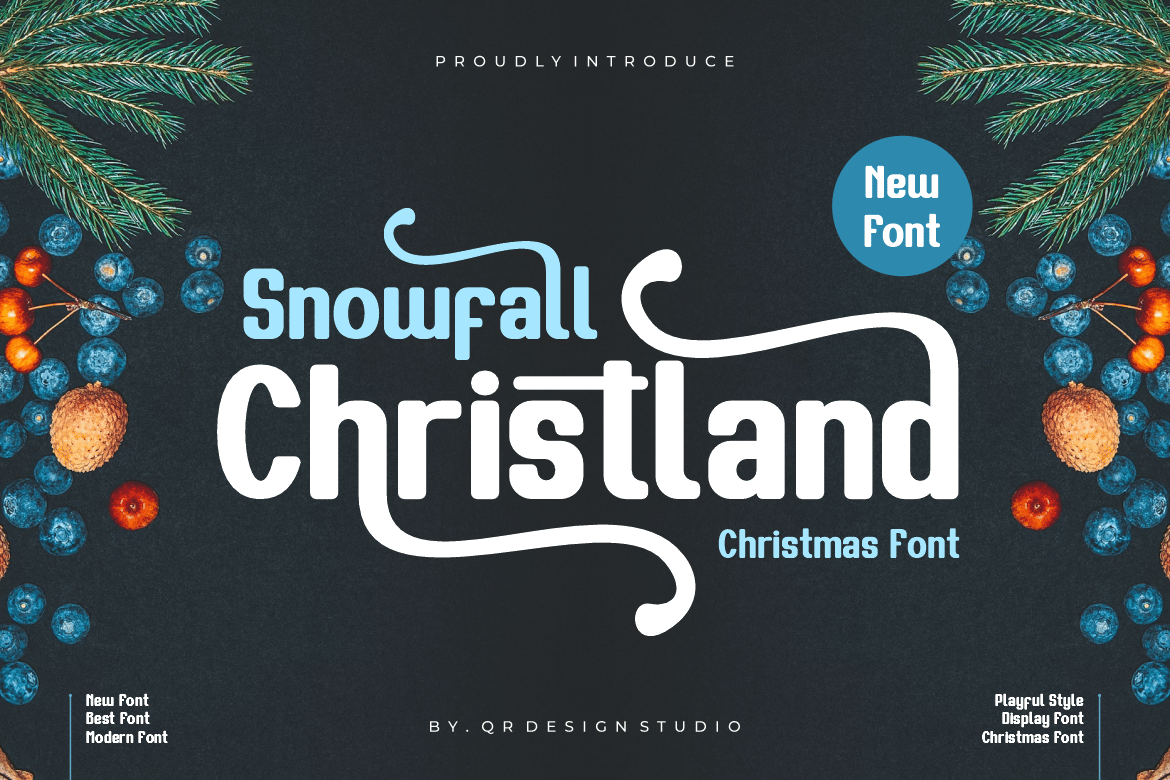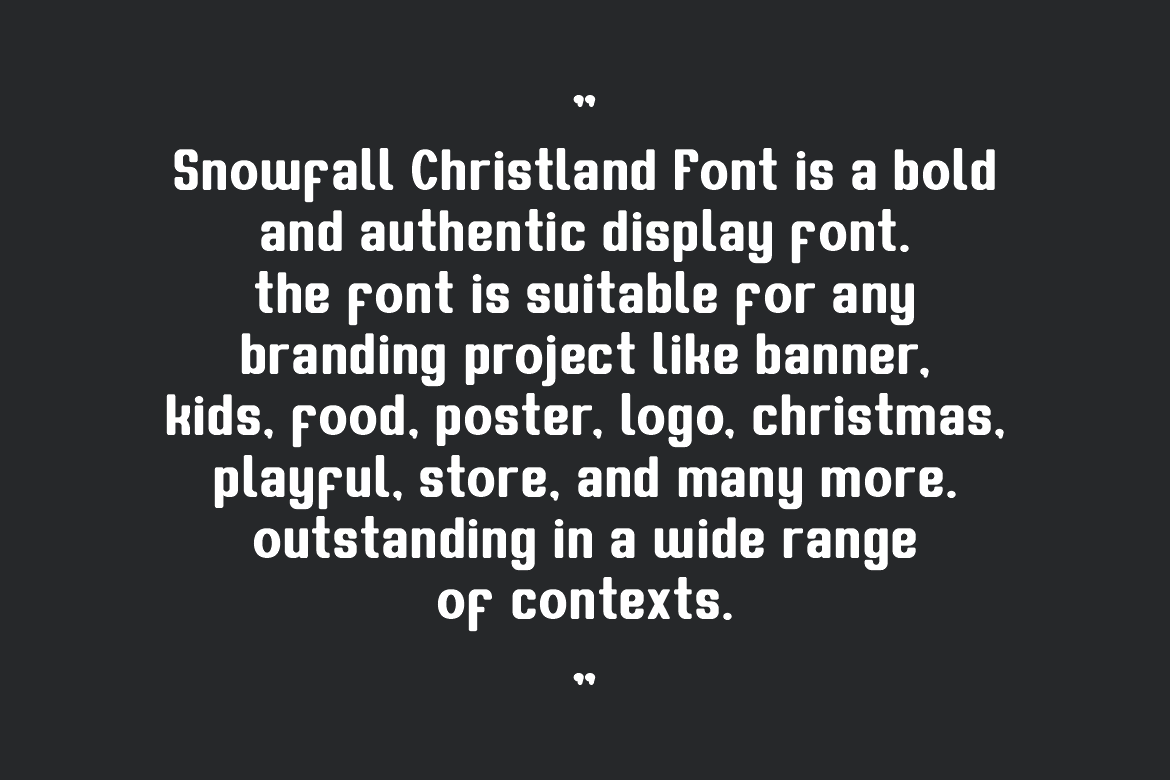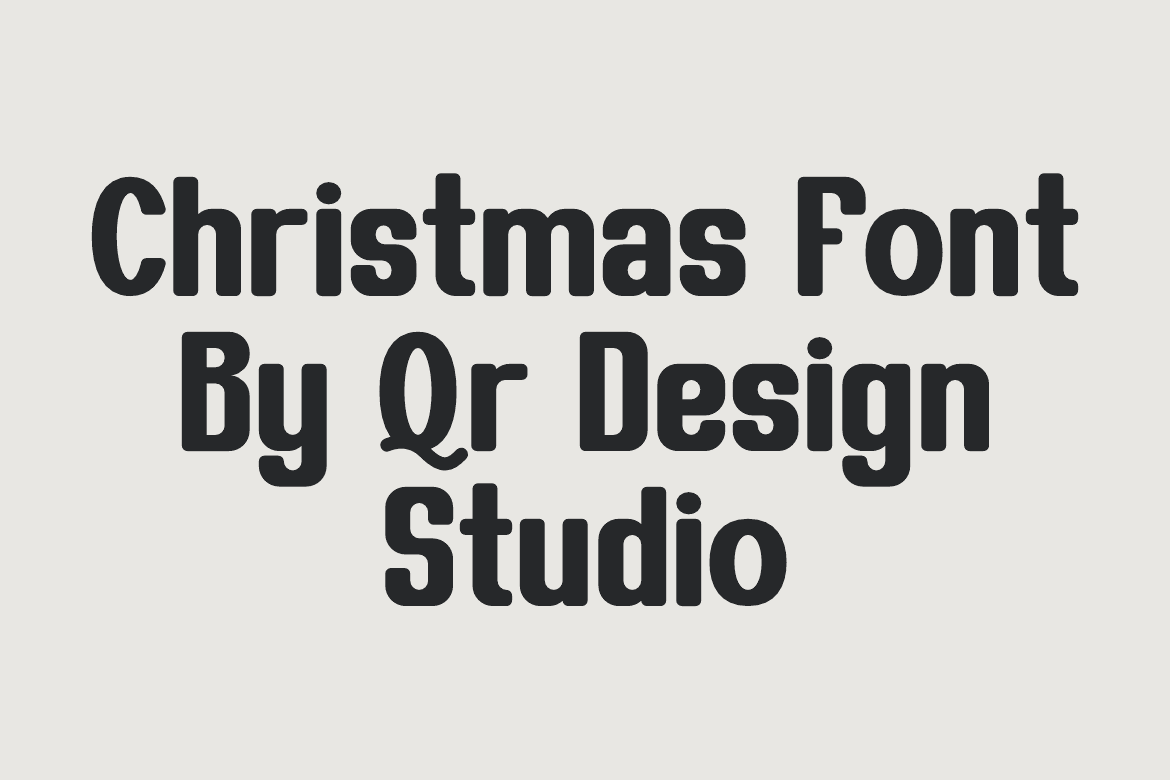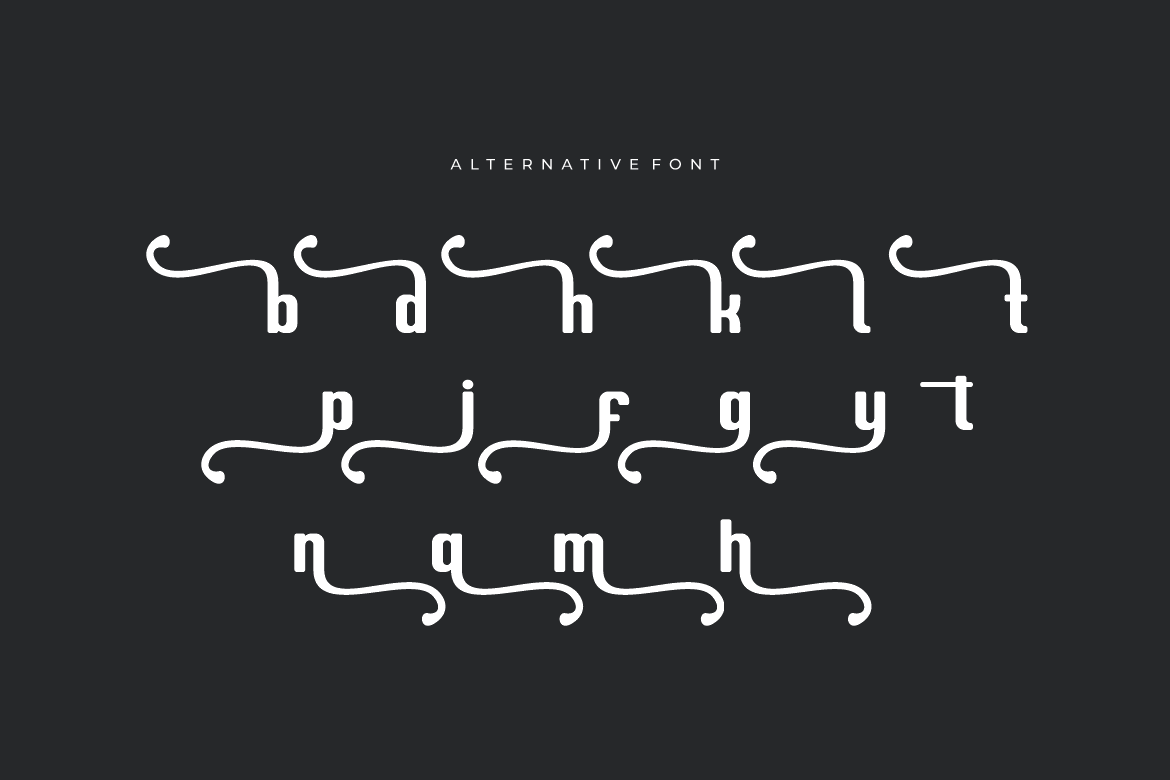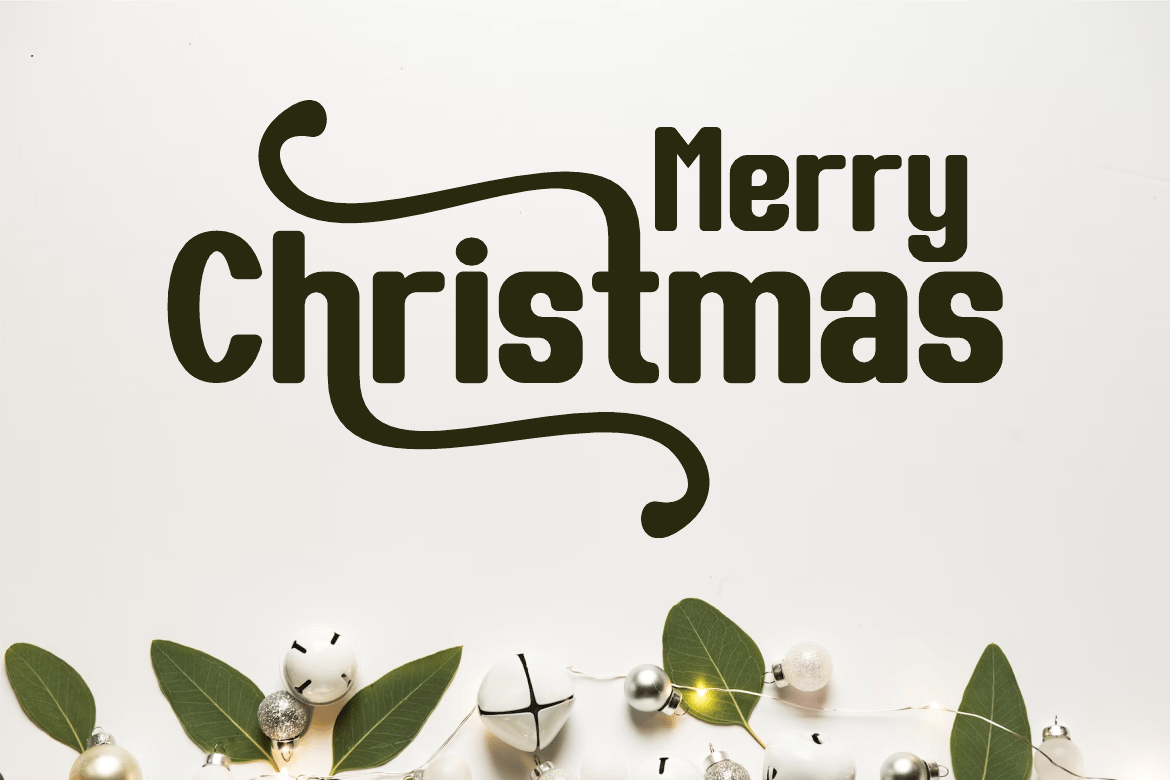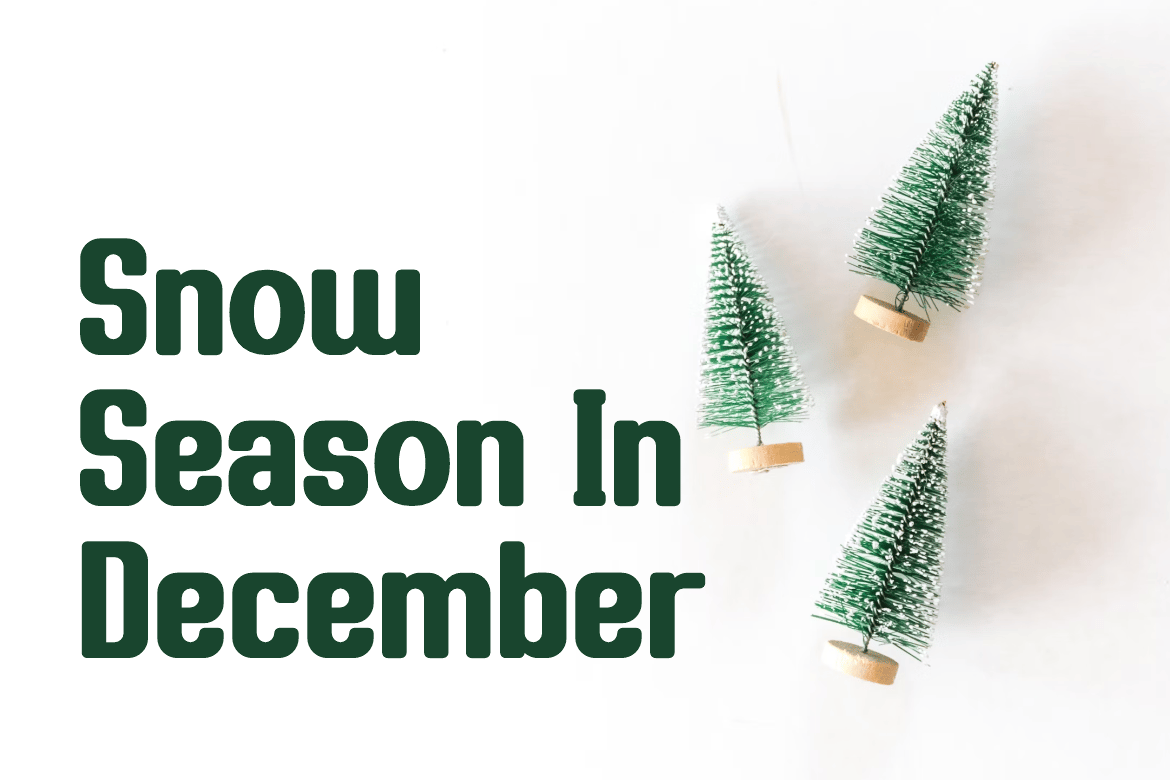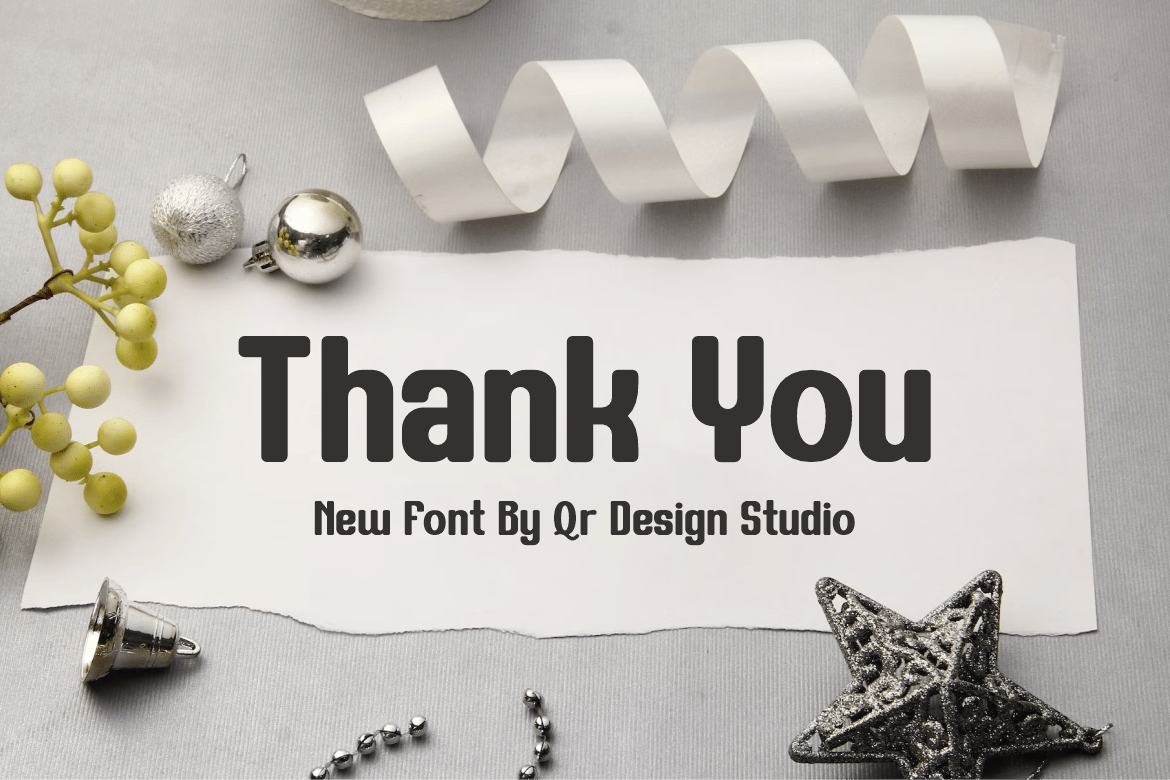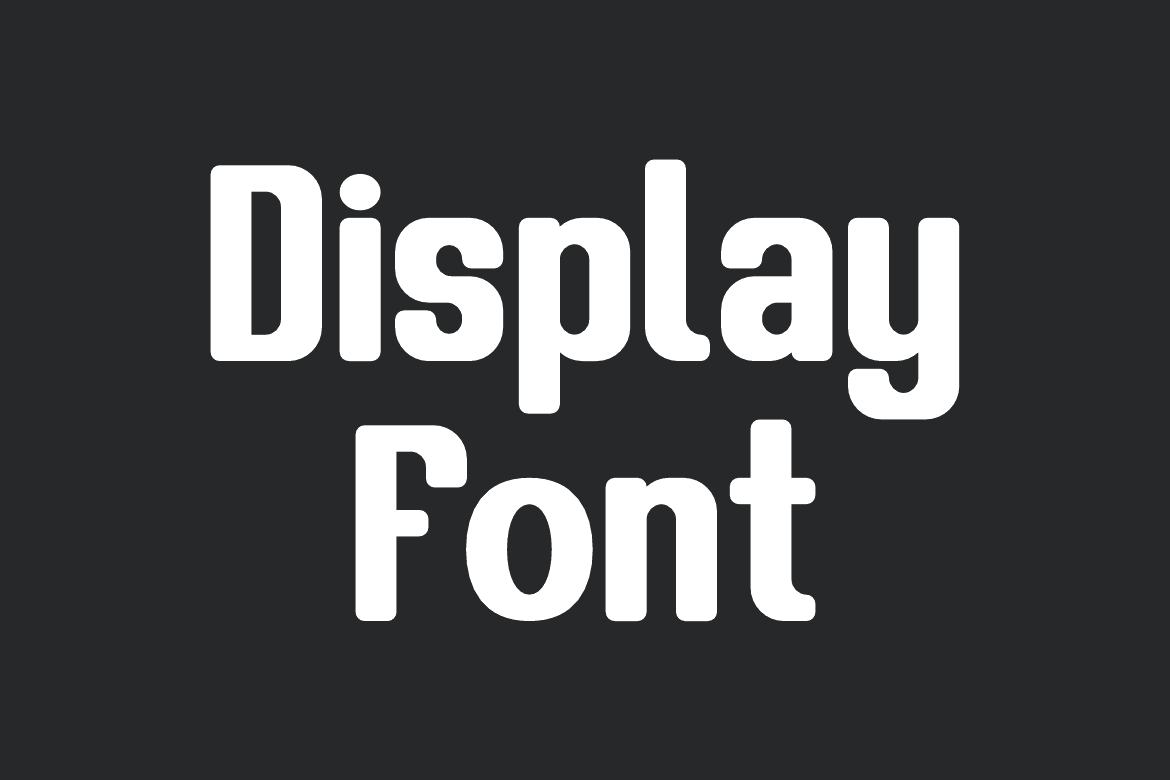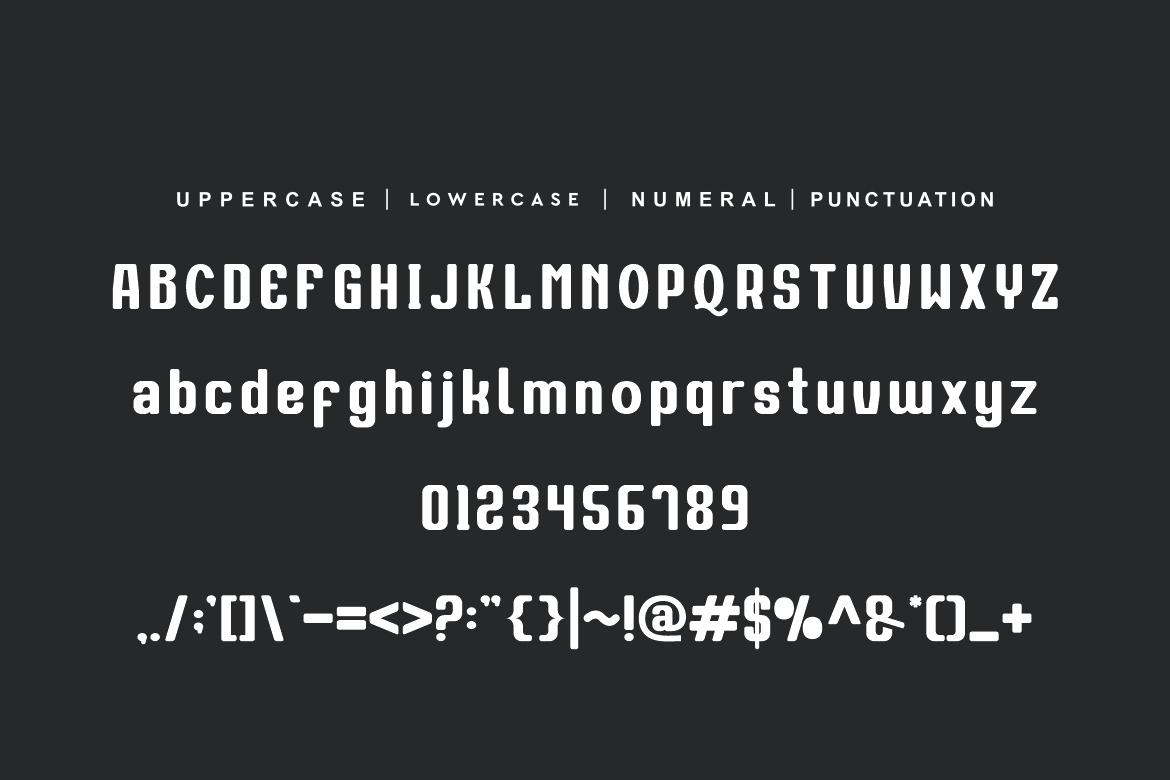
Snowfall Christland – Christmas Font
Snowfall Christland – Christmas Font is a bold and authentic display font.
The font is suitable for any branding project like Christmas, poster, greeting card, wedding, logo, sport, and many more.
Outstanding in a wide range of contexts.